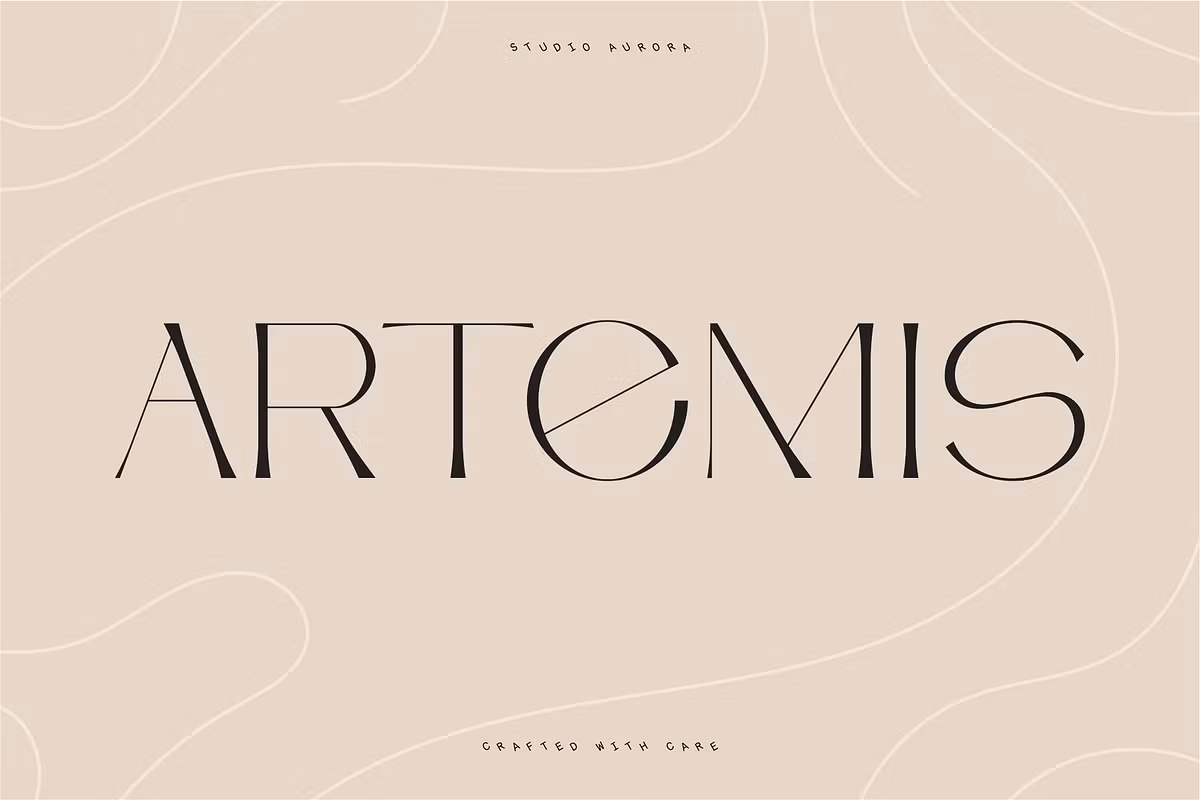
Artemis – Semi-serif Unique Typeface Free Download
You must purchase this font for commercial use. However, you can download Artemis – Semi-serif Unique Typeface Free Download for testing purposes. Artemis offers an elegant balance between classic serifs and modern sans-serifs, creating a distinctive, eye-catching look ideal for branding, logos, headlines, posters, and creative print projects. Its unique semi-serif design provides a sophisticated yet contemporary vibe, capturing attention instantly in both digital and physical formats. Designers seeking originality and readability will appreciate the versatility and creative freedom Artemis delivers. Whether you're crafting premium packaging designs, editorial layouts, fashion catalogs, or impactful social media graphics, Artemis – Semi-serif Unique Typeface Free Download allows your projects to stand out effortlessly. Experiment with its various weights and stylistic alternatives to achieve a personalized aesthetic. Remember to comply with licensing requirements for commercial endeavors. Download Artemis – Semi-serif Unique Typeface Free Download today, and elevate your typography with style and distinction.